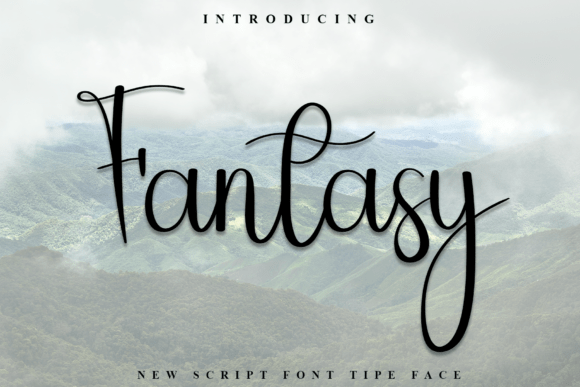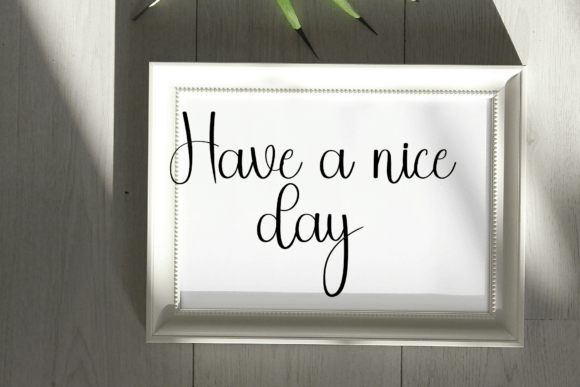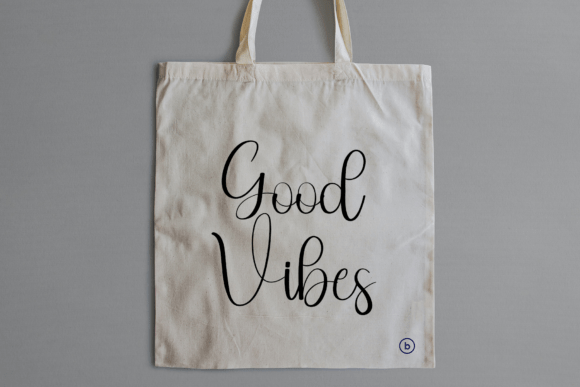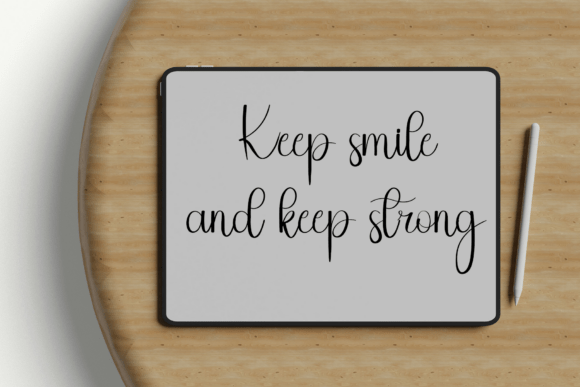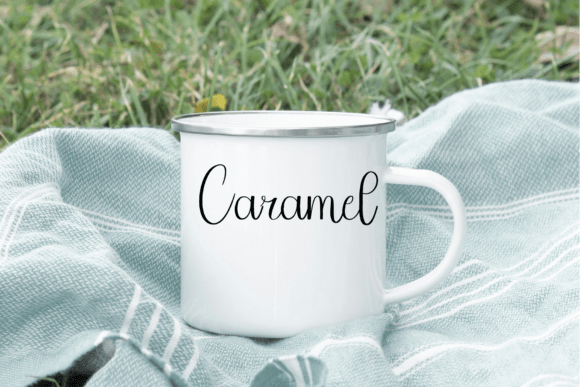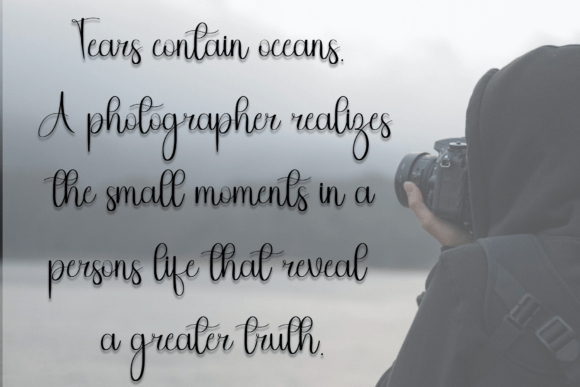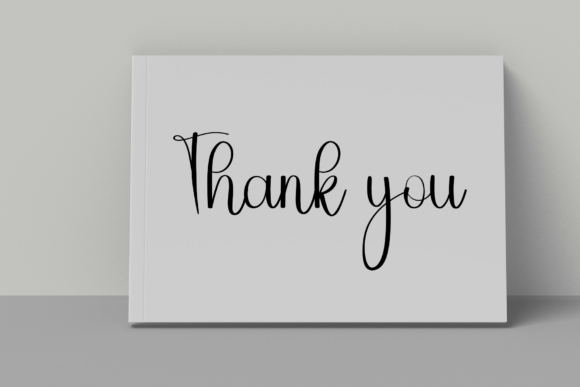
Unlock the Magic of Fantasy Font
Have you ever sat down with a blank sheet of paper, a pencil in hand, and let your imagination run wild? That’s exactly what happened when I first stumbled upon the Fantasy Font. As a designer, I’ve always been drawn to fonts that evoke a sense of whimsy and wonder, and Fantasy Font does just that.
This beautiful handwritten font is more than just a pretty face – it’s a versatile tool for designers looking to add a touch of magic to their work. Whether you’re creating eye-catching logos, branding, or quotes, Fantasy Font is the perfect choice. With its unique and beautiful touch, every letter comes alive, making your design truly unforgettable.
Fantasy Font Key Features
- Character Set: The font includes a comprehensive set of characters, including uppercase and lowercase letters, numbers, punctuation marks, and special symbols, making it suitable for a wide range of applications.
- Unique Characteristics: Fantasy Font features a distinctive, hand-drawn design with intricate details and flourishes, giving it a whimsical and imaginative feel.
- Language Support: Fantasy Font supports multiple languages, including English, Spanish, French, German, Italian, and many others, making it a versatile choice for global applications.
Review of Fantasy Font
Overall, I was excited to dive into Fantasy Font, with its promise of a whimsical and enchanting design. ✨ As I explored the font, I was indeed impressed by its creative flair and the way it can add a touch of magic to any project.
- The font’s unique letterforms and ornate flourishes are a standout feature, making it perfect for fantasy-themed projects, such as game development, book covers, and more.
- The various weight options allow for a range of creative applications, from delicate headings to bold text blocks.
- The font is well-suited for digital use, with clear and legible letterforms even at smaller sizes.
However, there are a few limitations to consider: ⚠️ The font’s complexity can be overwhelming in certain contexts, and the lack of a clear font hierarchy can make it difficult to achieve a cohesive design.
Overall, I would recommend Fantasy Font for designers who are looking to add a touch of fantasy and whimsy to their projects. While it may not be the best choice for every project, its unique design and versatility make it a valuable addition to any designer’s toolkit.
Tips for Getting the Most Out of Fantasy Font
Use Fantasy Font to add a touch of whimsy and fantasy to your designs. Experiment with different font sizes, colors, and styles to create unique and eye-catching effects.
Fantasy Font is ideal for use in fantasy-themed designs, such as:
– Book covers and chapter headings
– Role-playing game (RPG) character sheets and maps
– Fantasy-themed websites and social media graphics
– Children’s book illustrations and storybooks